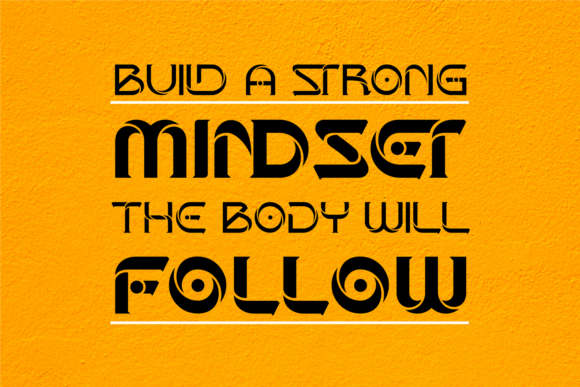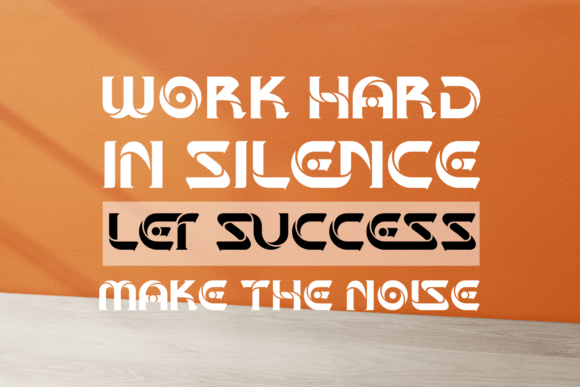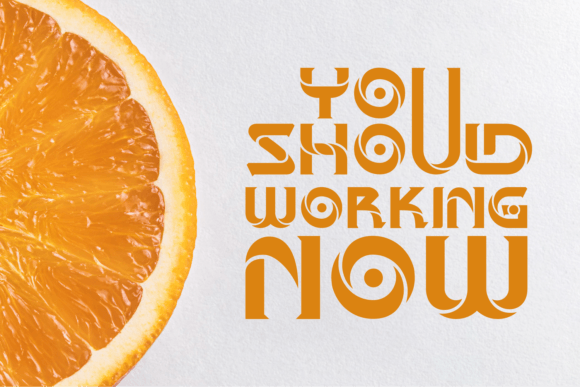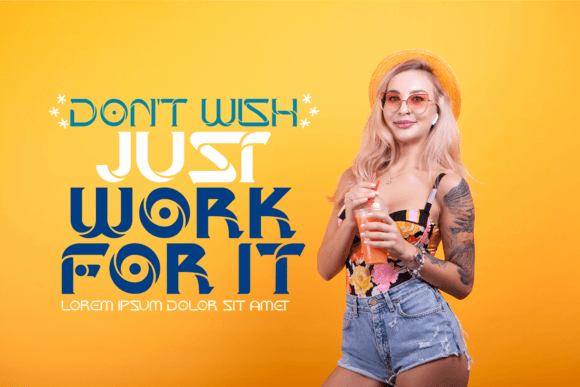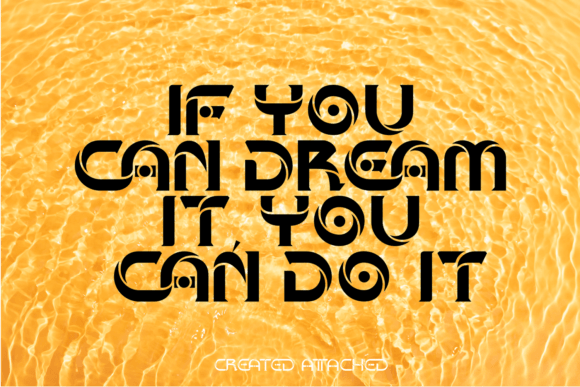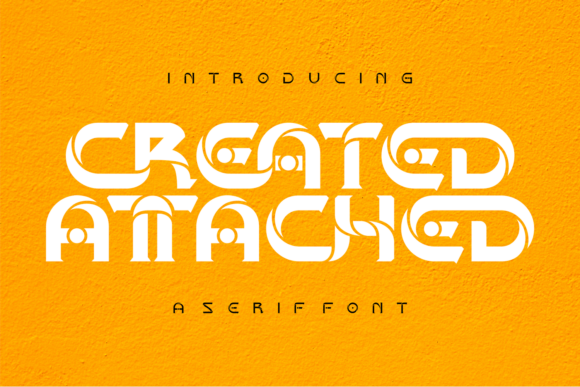
Introducing Created Attached Font: The Ultimate Modern Display Font
In the world of typography, fonts play a crucial role in conveying messages, expressing creativity, and capturing attention. For designers and crafters looking for a modern and captivating display font, Created Attached Font is an excellent choice. This futuristic font is designed to radiate a modern edge, making it perfect for creating stunning displays that leave a lasting impression.
What Makes Created Attached Font Stand Out?
Created Attached Font boasts smooth, sleek lines that are not only eye-catching but also exude a cutting-edge vibe. Its unique design makes it an ideal choice for designers and crafters who want to add a touch of modernity to their projects. Whether you’re working on a branding project, a website, or a crafting project, this font is sure to elevate your design to the next level.
PUA Encoding for Easy Access to Glyphs and Ligatures
One of the standout features of Created Attached Font is its PUA (Private Use Area) encoding. This means that users can access all the amazing glyphs and ligatures with ease, giving them more creative freedom and flexibility. With PUA encoding, you can effortlessly navigate through the font’s extensive character set, including swashes, alternates, and ligatures, to create truly unique and captivating text designs.
Created Attached Font is a versatile font that can be used in a wide range of design projects, from digital designs to print materials. Designers can use it to create stunning logos, brochures, posters, and social media graphics, while crafters can use it to add a personal touch to their DIY projects, such as handmade cards, scrapbooking, and iron-on designs.
Key Features of Created Attached Font
• Futuristic and modern design: Created Attached Font features a sleek and modern design that’s perfect for creating captivating displays.
• Smooth and sleek lines: The font’s smooth lines create a cutting-edge vibe that’s sure to grab attention.
• PUA encoded: Easy access to all glyphs and ligatures, giving users more creative freedom.
• Extensive character set: Includes swashes, alternates, and ligatures to create unique text designs.
• Versatile: Suitable for a wide range of design projects, from digital designs to print materials.
Tips for Using Created Attached Font
To get the most out of Created Attached Font, here are some tips to keep in mind:
• Experiment with different sizes and colors: To create visual interest, try using the font in different sizes and colors.
• Mix and match glyphs and ligatures: Take advantage of the font’s extensive character set to create unique and captivating text designs.
• Use it for headlines and titles: Created Attached Font is perfect for creating stunning headlines and titles that grab attention.
In conclusion, Created Attached Font is an excellent choice for designers and crafters looking for a modern and captivating display font. Its futuristic design, smooth lines, and PUA encoding make it a versatile font that can be used in a wide range of design projects. With its extensive character set and easy-to-use glyphs and ligatures, Created Attached Font is sure to elevate your designs to the next level.